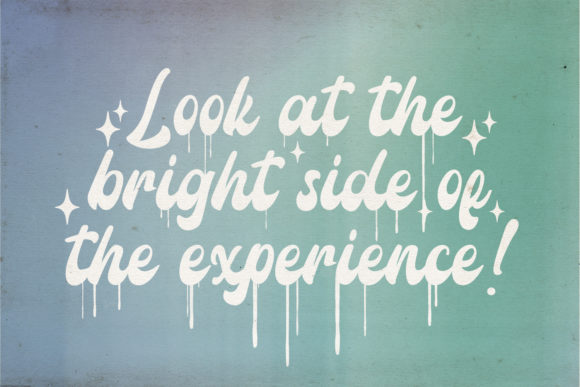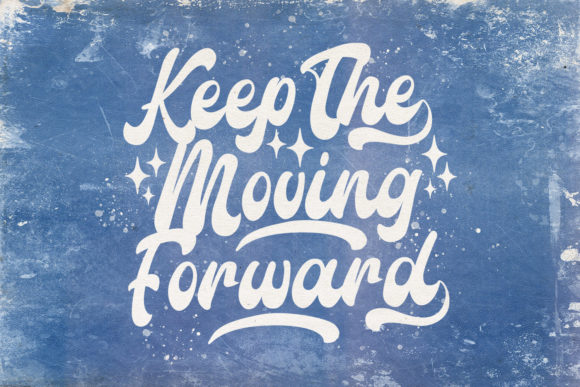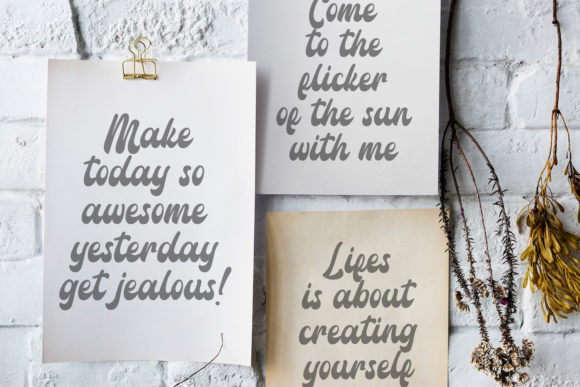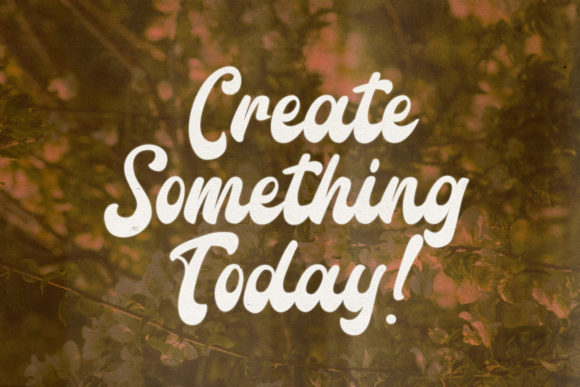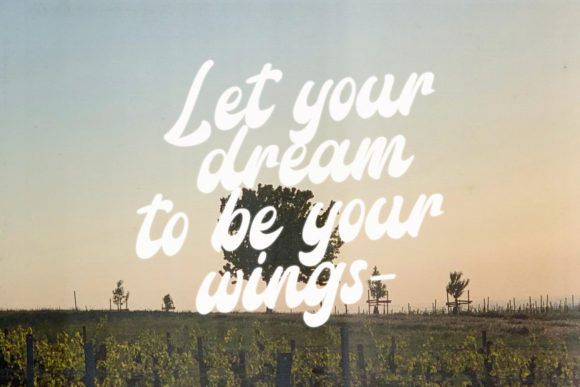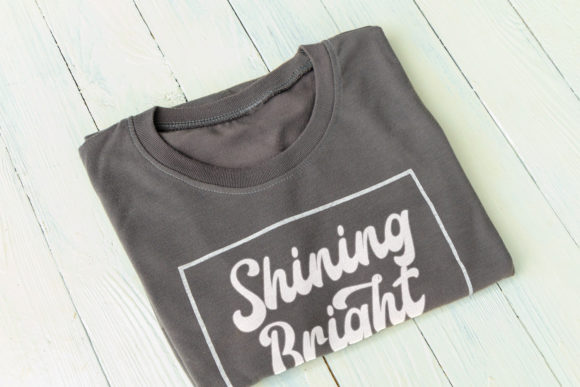
Introducing Amigos Font: The Ultimate Bold Script Font for Creative Branding
Are you on the hunt for a font that can add a touch of uniqueness and personality to your branding projects? Look no further than Amigos Font, a strong and bold script font that’s sure to make your designs stand out. With its curved, rounded, and vintage-inspired style, Amigos Font is the perfect addition to your font collection.
What Makes Amigos Font So Special?
Amigos Font boasts a distinctive vintage style that’s both eye-catching and memorable. Its bold and curved lines give it a dynamic feel that’s perfect for creating eye-catching headlines, titles, and branding materials. Whether you’re working on a logo, brochure, or website, Amigos Font is sure to add a touch of personality and flair to your design.
Key Features of Amigos Font
- Strong and Bold: Amigos Font is a robust and attention-grabbing font that’s perfect for creating bold statements.
- Curved and Rounded: The font’s curved and rounded lines give it a friendly and approachable feel that’s perfect for building a connection with your audience.
- Unique Vintage Style: Amigos Font’s vintage-inspired design sets it apart from other fonts and adds a touch of character to your designs.
Benefits of Using Amigos Font
So, why should you choose Amigos Font for your next design project? Here are just a few benefits of using this amazing font:
- Instant Recognition: Amigos Font’s unique design makes it instantly recognizable, which can help to build brand awareness and establish your identity.
- Emotional Connection: The font’s friendly and approachable feel can help to create an emotional connection with your audience, which is essential for building a loyal customer base.
- Versatility: Amigos Font is versatile and can be used for a wide range of design projects, from branding and advertising to packaging and web design.
- Experiment with Different Sizes: Amigos Font looks great in a variety of sizes, from small and delicate to large and bold.
- Play with Color: The font’s vintage-inspired design looks great in a range of colors, from bright and bold to muted and pastel.
Amigos Font is a powerful and versatile font that’s perfect for designers and crafters looking to add a touch of personality and uniqueness to their branding projects. With its strong and bold design, curved and rounded lines, and vintage-inspired style, Amigos Font is sure to make your designs stand out. So why wait? Download Amigos Font today and start creating amazing branding materials that will leave a lasting impression on your audience!